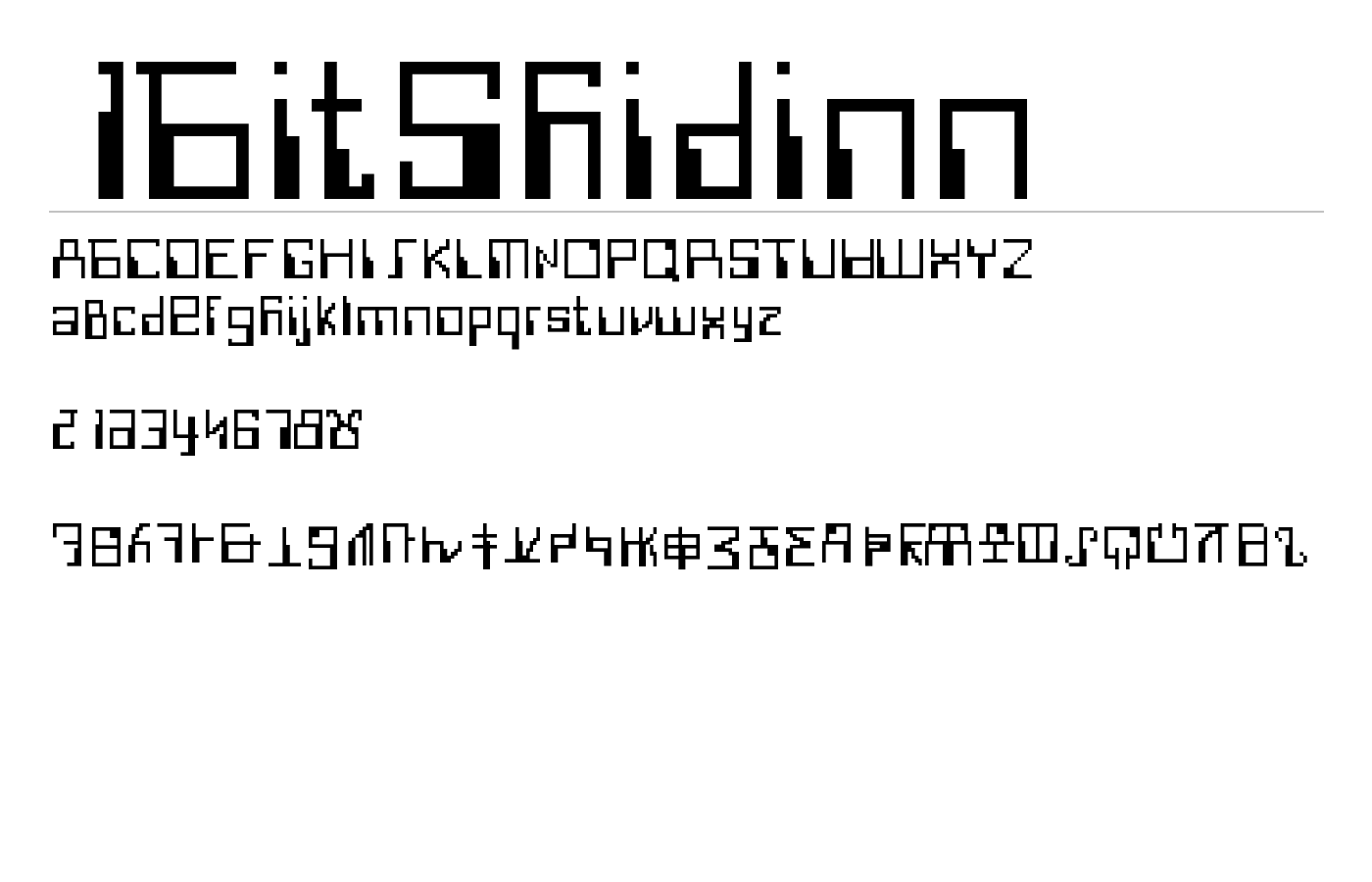
1BitShidinn is a unique, pixel-inspired sans serif font that channels a digital, retro gaming aesthetic with its blocky, geometric letterforms and consistent stroke weight. Its condensed width and high x-height create a compact yet legible style that works well for tech-themed designs, video game graphics, and digital branding, bringing a nostalgic yet modern vibe. This font is perfect for headlines, logos, and creative projects that want to evoke an 8-bit or vintage computer feel with a futuristic twist.
1BitShidinn Font
About 1BitShidinn Font